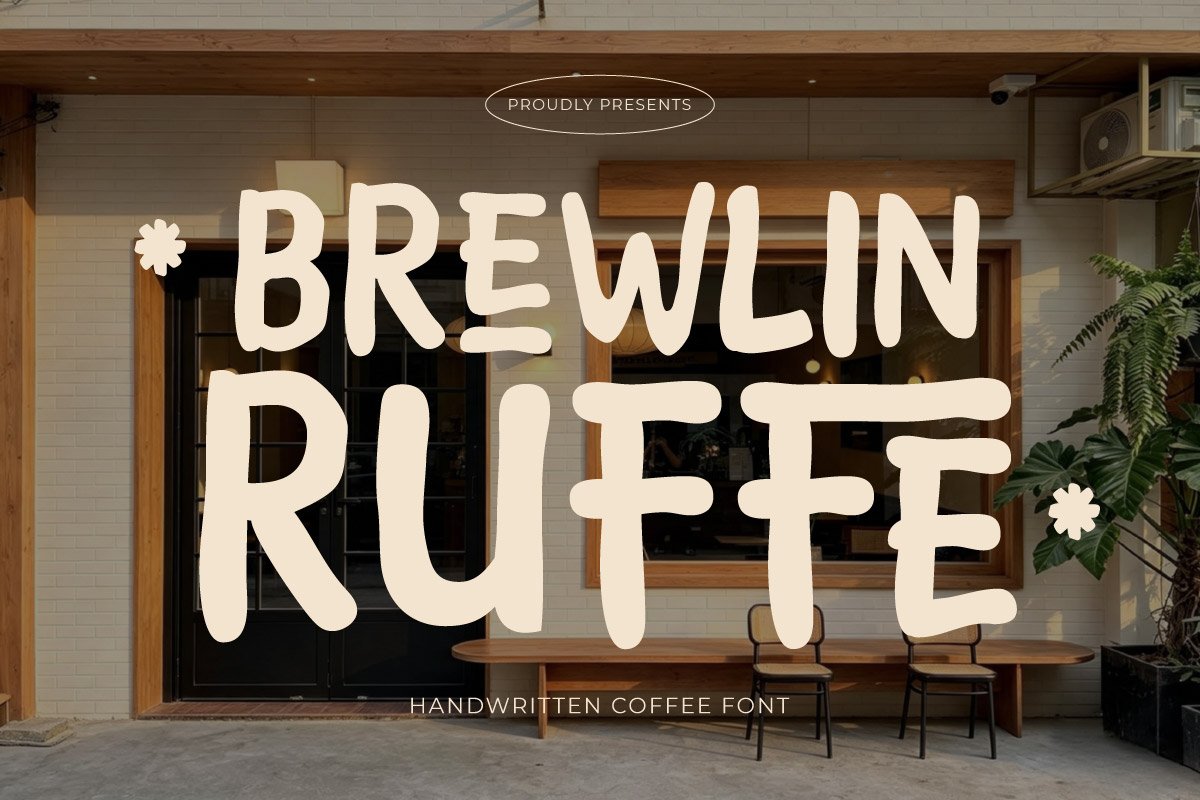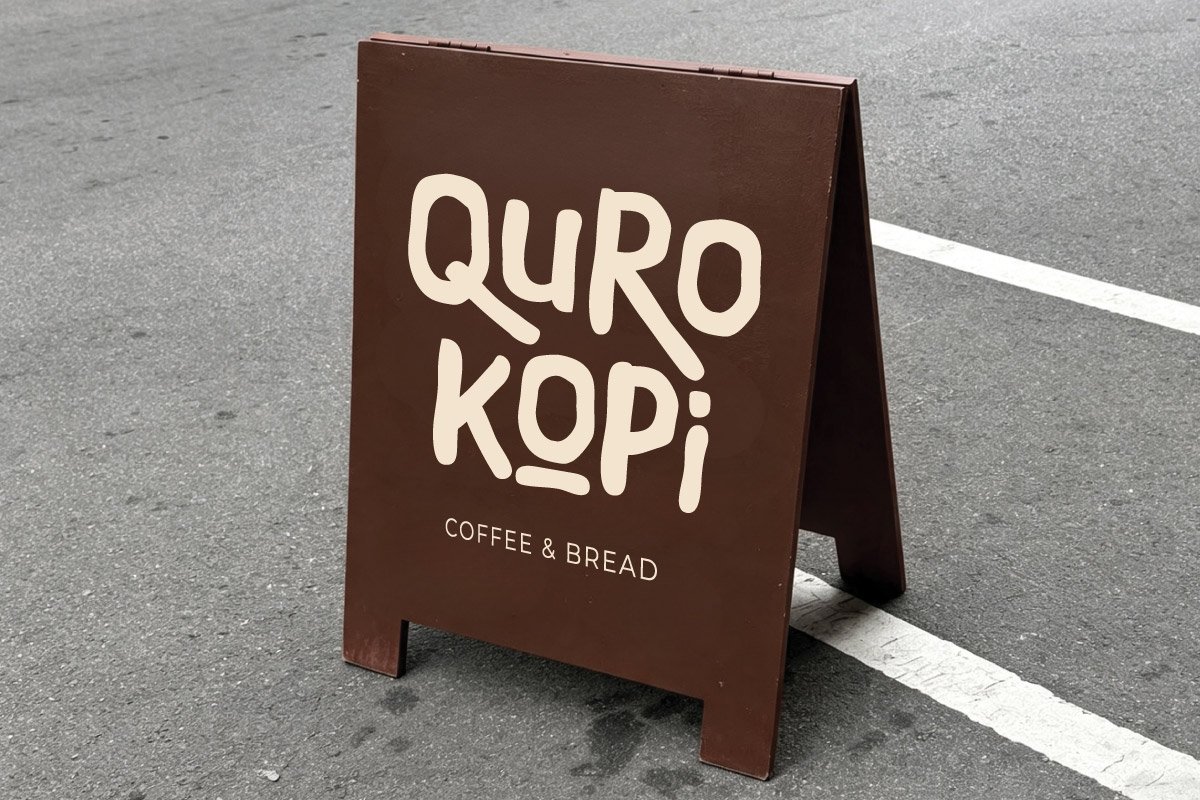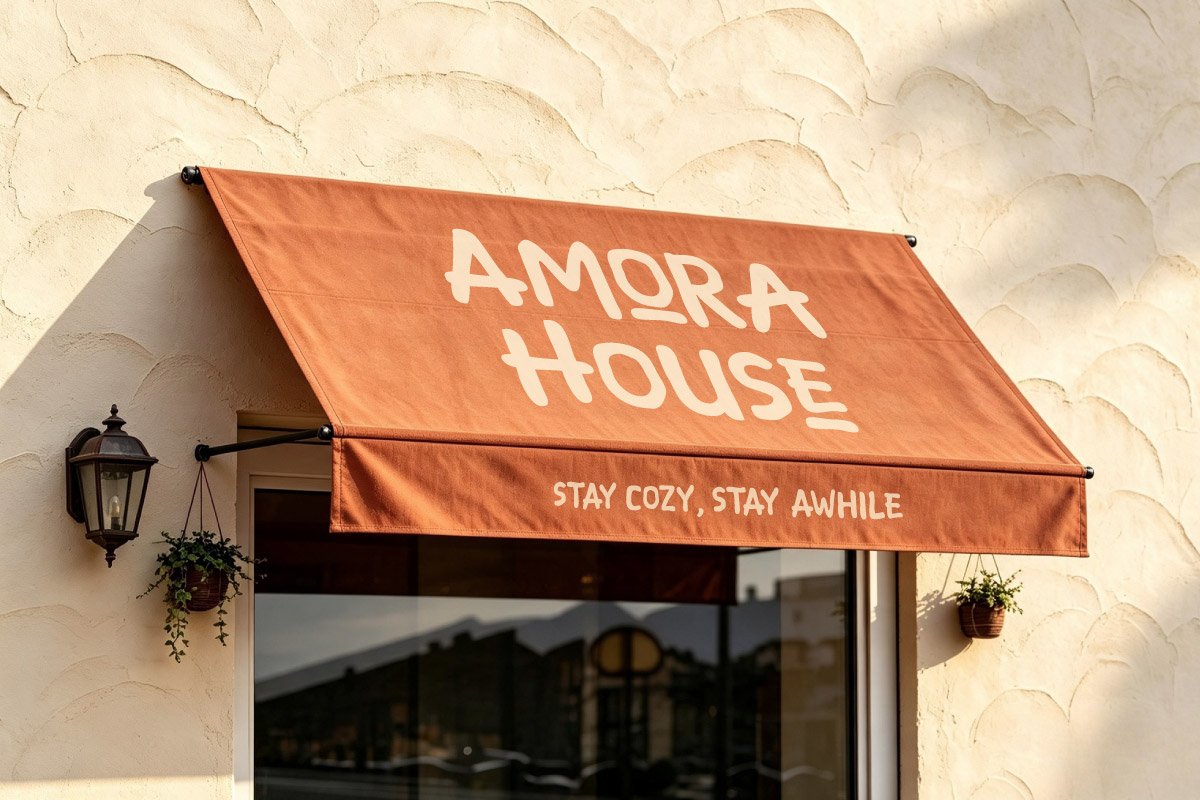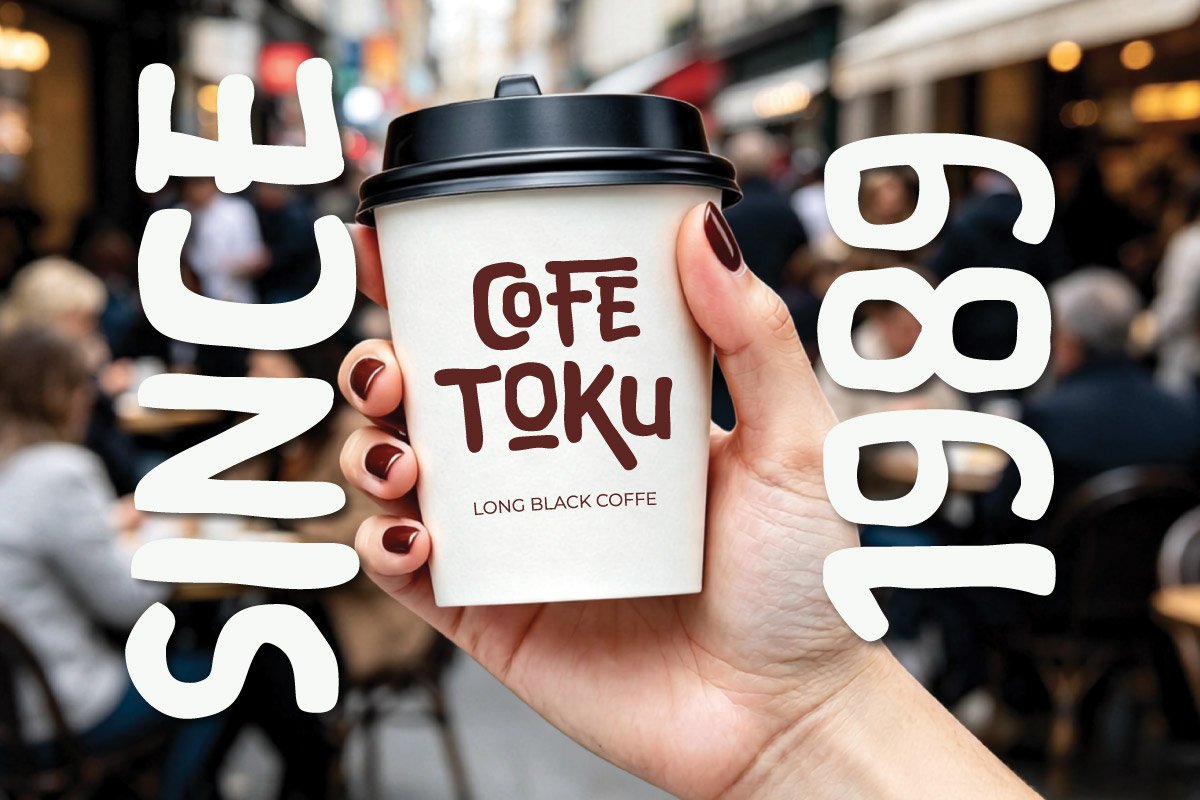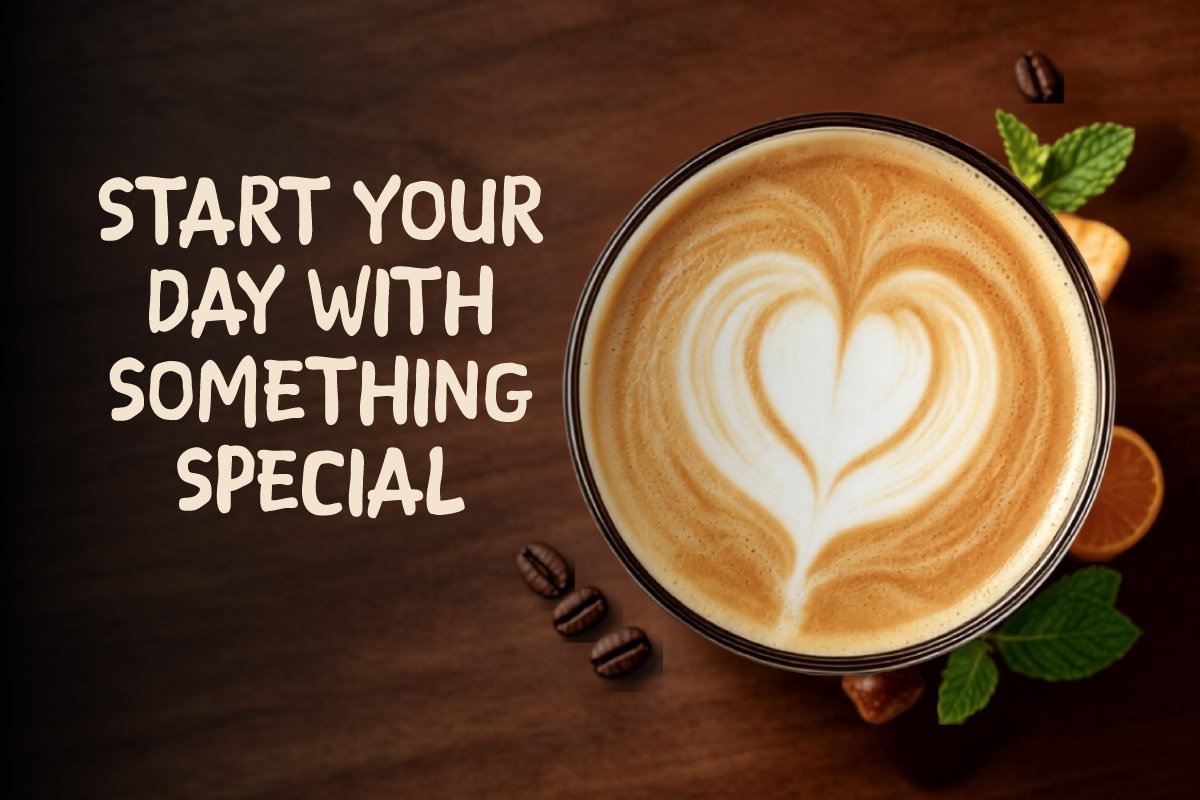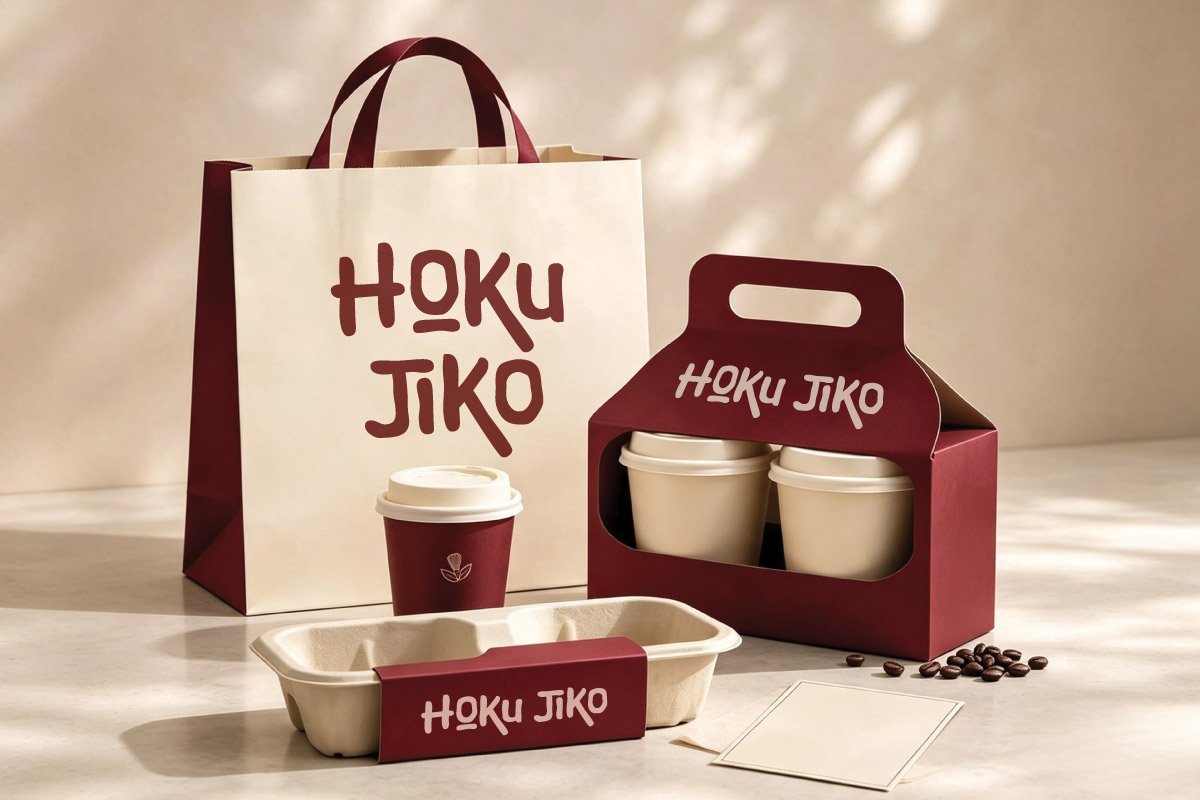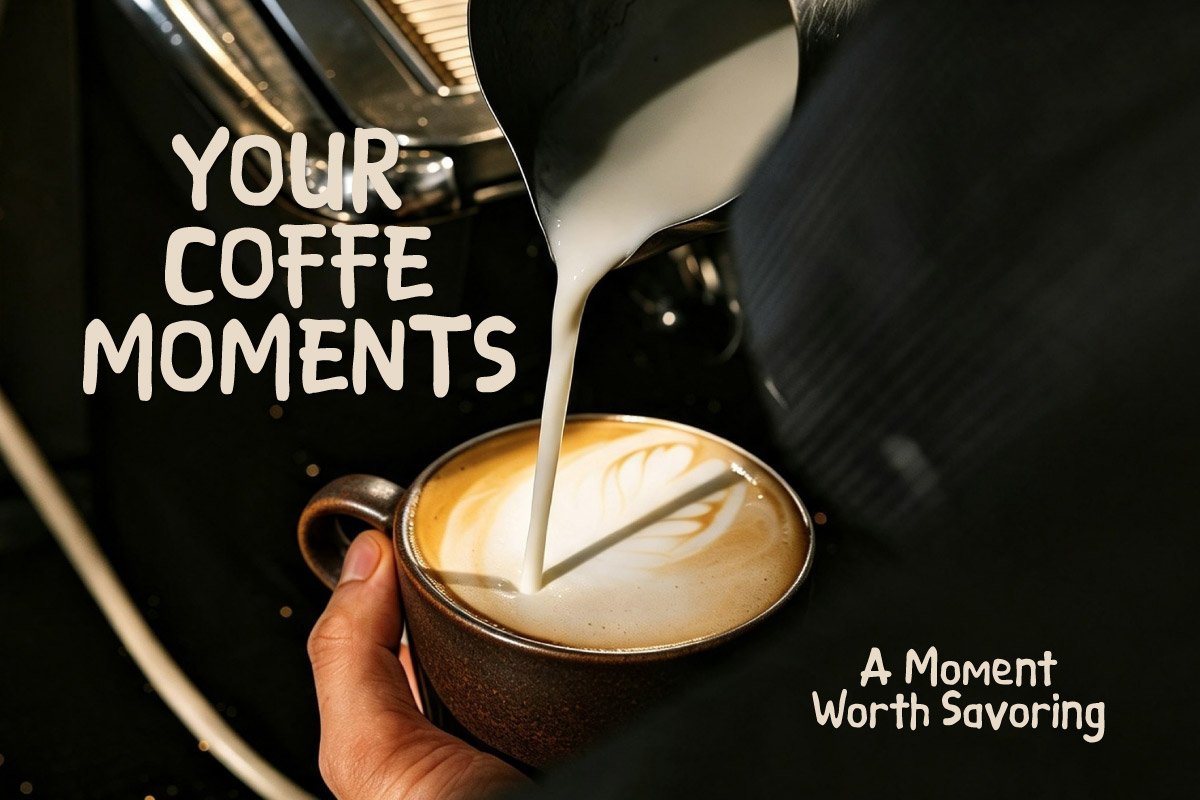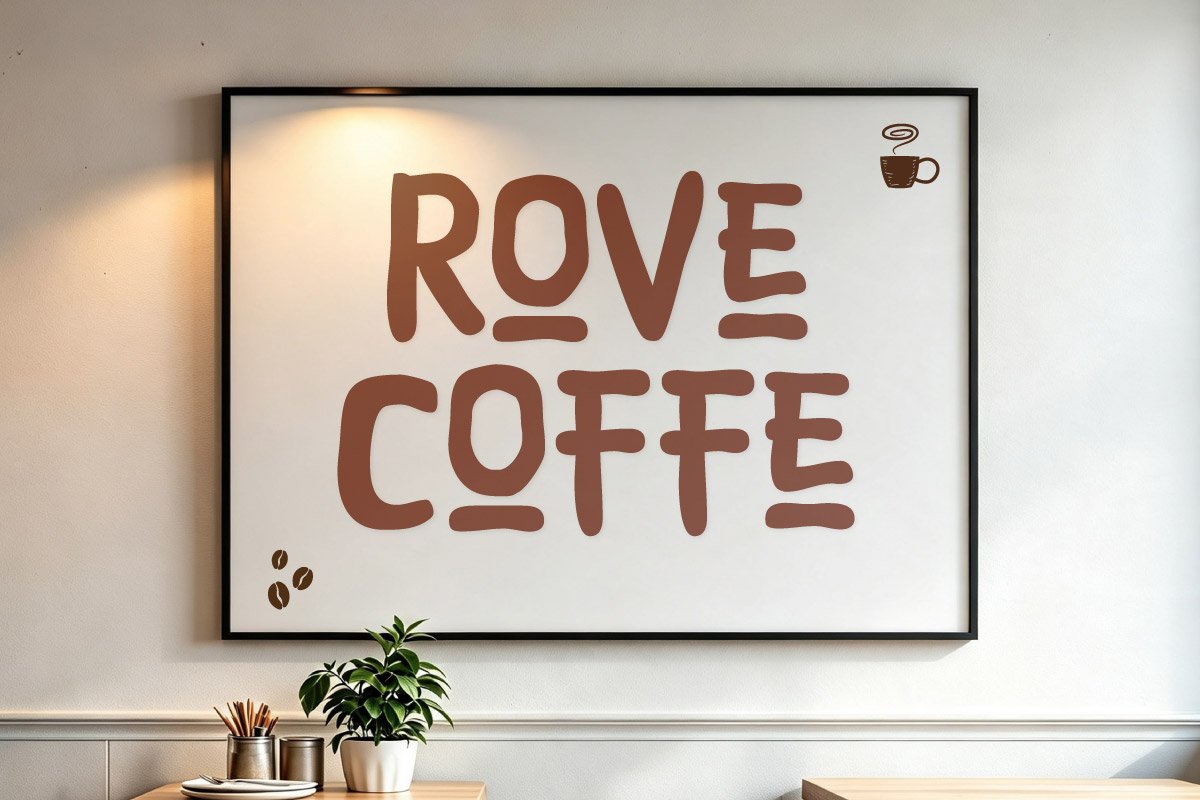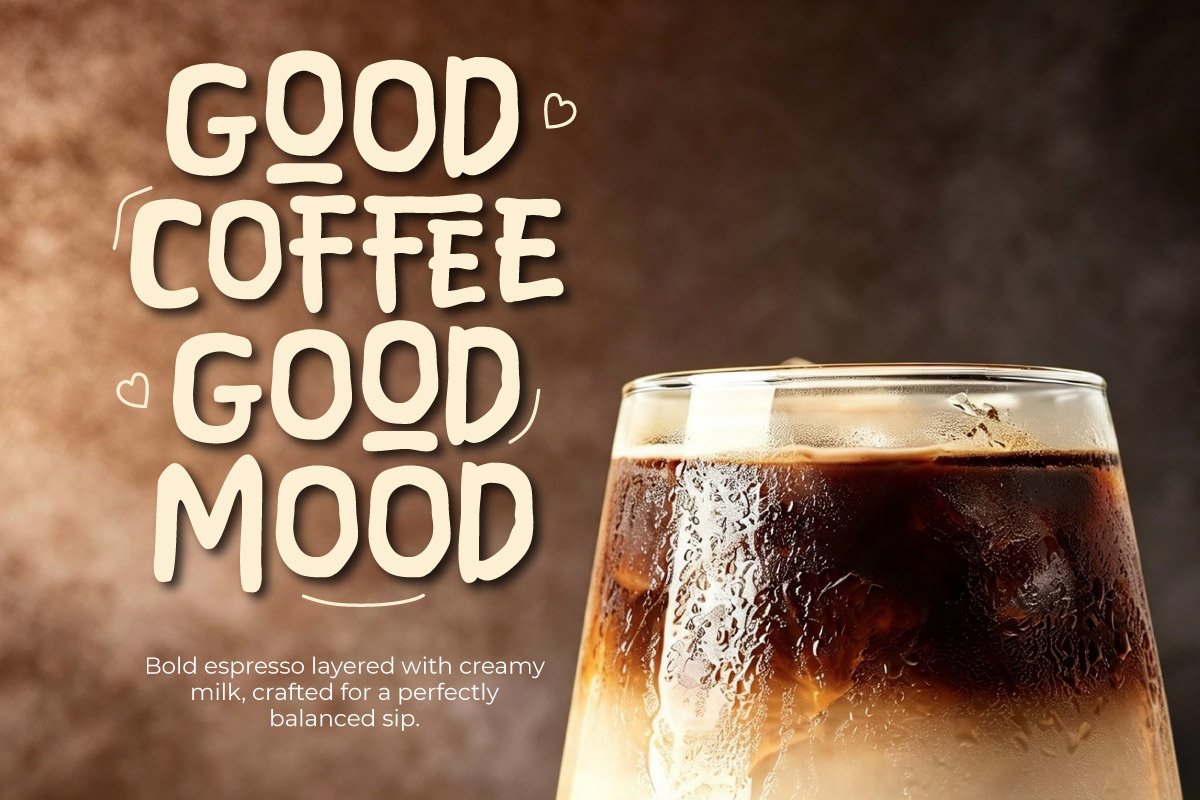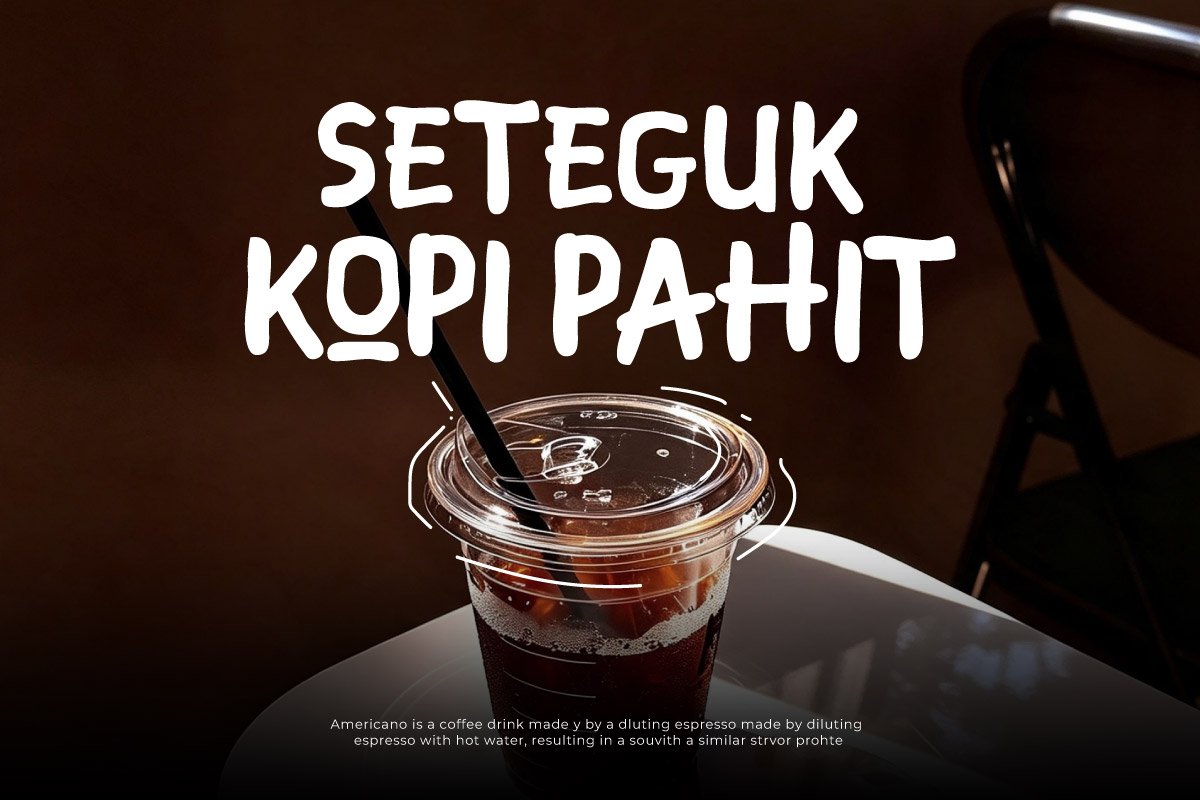
Brewlin Ruffe – Coffee Display Font
Brewlin Ruffe is a casual handwritten display font featuring a bold, organic, and slightly playful character. Designed to deliver a warm and cozy aesthetic, this typography brings an authentic handcrafted touch to deeply strengthen the visual identity of any culinary brand.
Highly versatile, this font is perfectly suited for coffee shop branding, artisanal product packaging, bakery labels, and local roastery menus. Beyond printed materials, its excellent legibility makes it an outstanding choice for digital graphic design, social media assets, and modern user interfaces (UI).
An essential pick for food business owners, designers, and creators aiming to instantly project a friendly and approachable vibe. Create an appetizing visual experience and elevate the overall appeal of your creative projects with the captivating charm of this typeface.